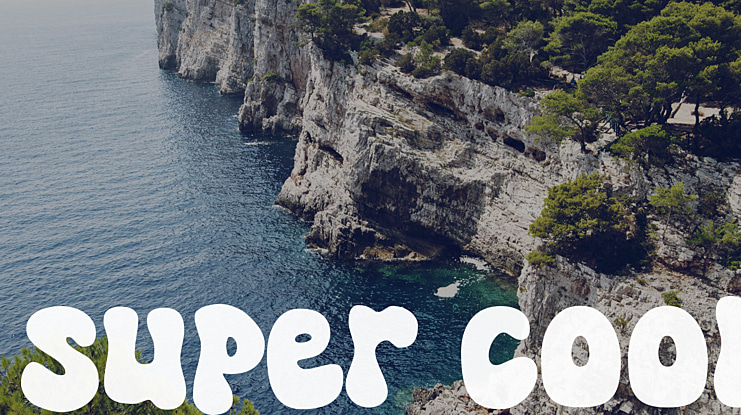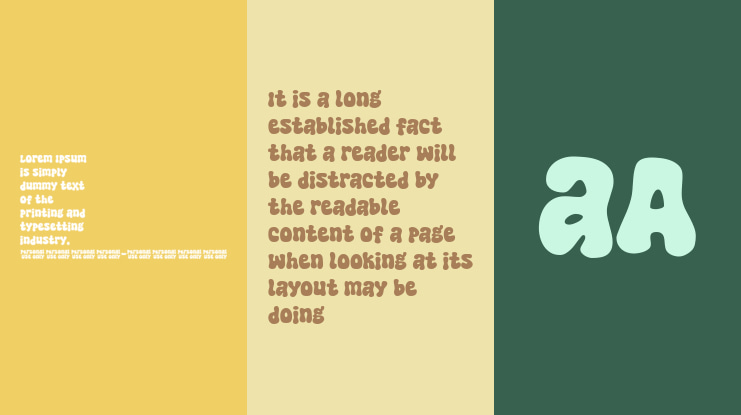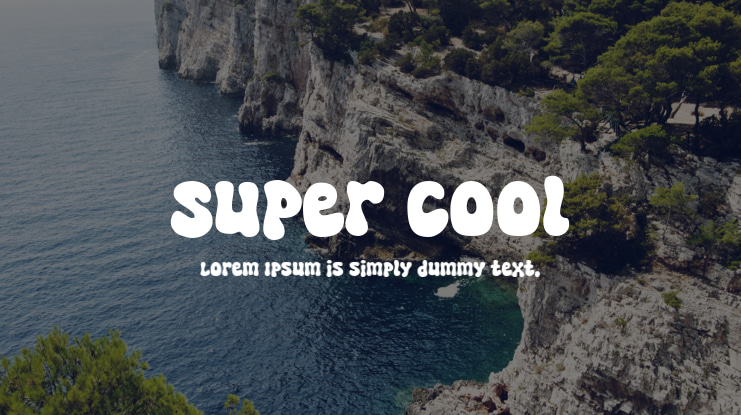
Super Cool Font
Super Cool is a quirky, groovy, fun, and cool display font. The font features thick, rounded letters with a playful twist. The letters are slightly uneven, giving the font a unique and handcrafted look.